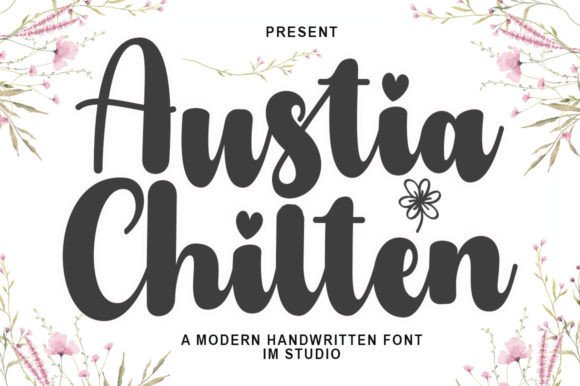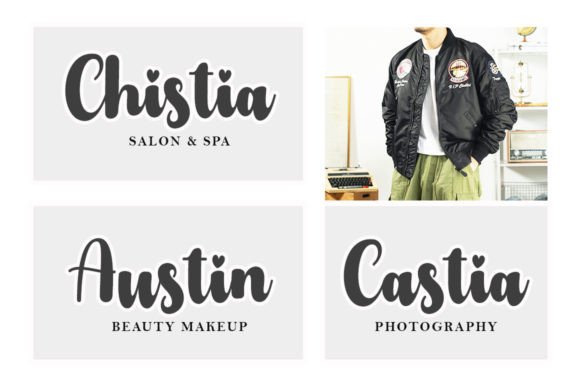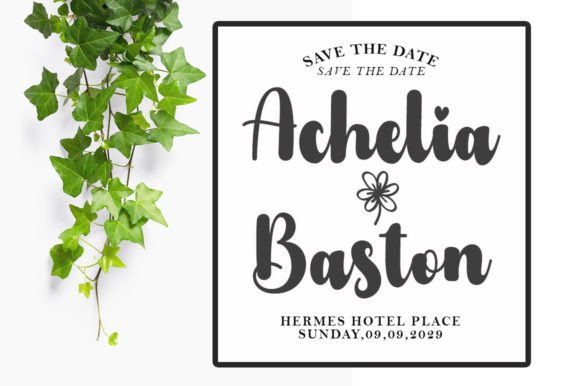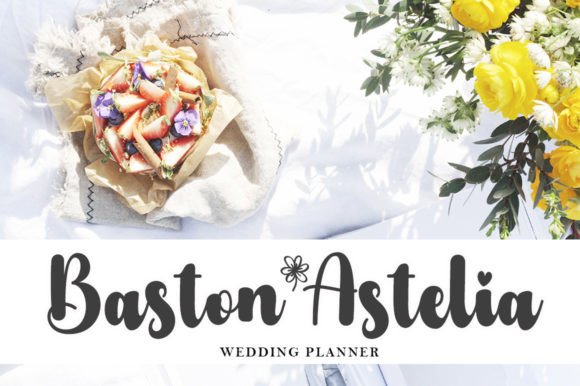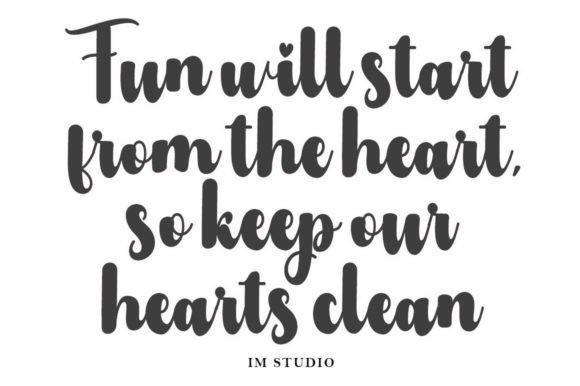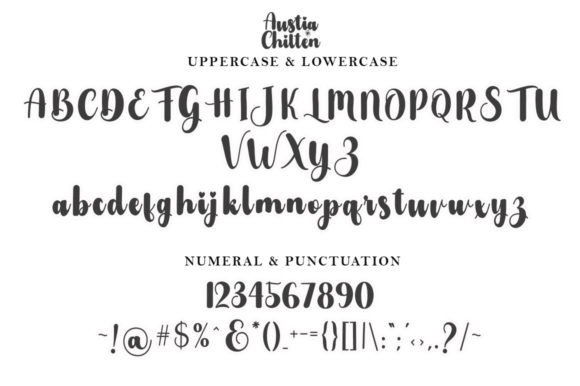
About Austia Chilten Font
Austia Chiltenfont offers a perfect blend of charm and elegance in a handwritten script style. Designed to elevate your creative projects, this font shines in applications where a personal and refined touch is essential. Whether you are working on wedding invitations, thank you cards, logos, or branding materials, Austia Chilten brings a graceful and sophisticated feel that makes your designs truly stand out.
Elegant Handwritten Style
With its smooth, flowing strokes and delicate curves, Austia Chiltenfont captures the natural beauty of handwriting while maintaining clarity and style. Each character is meticulously crafted to create a harmonious balance between elegance and legibility. This makes it an excellent choice for projects that require both artistic flair and readability.
Perfect for Wedding Invitations and Greeting Cards
Austia Chiltenfont is a popular choice for wedding-related designs. Its refined and romantic style lends warmth and sophistication to invitations, save-the-date cards, and thank you notes. The font’s elegant appearance makes any occasion feel special and memorable, helping to set the right tone for weddings and celebrations.
Ideal for Branding and Logo Design
For businesses seeking to establish a unique and elegant identity, Austia Chiltenfont offers a versatile solution. It enhances logos, business cards, and branding materials by adding a handcrafted, authentic vibe. This font works well for boutique shops, luxury brands, and creative professionals who want to communicate style and personality through their visual presence.
Versatile Applications for Creative Projects
Beyond weddings and branding, Austia Chiltenfont adapts well to many other creative projects. Use it for quotes, social media graphics, product packaging, or personalized stationery. Its timeless charm ensures that it complements various design themes while providing a consistent sense of elegance.
Why Choose Austia Chilten Font?
Austia Chiltenfont combines classic elegance with a modern handwritten touch. It is suitable for anyone who wants to add a personal and artistic flair to their work. Its versatility and refined style make it an essential addition to any designer’s toolkit.